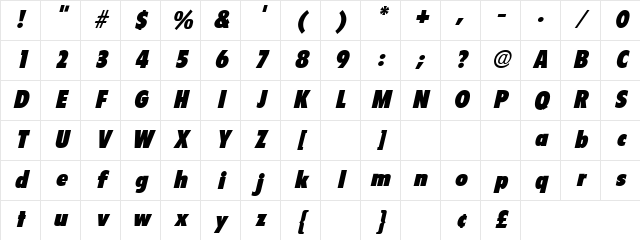
Rainbow Oblique
Design Context for Rainbow
Rainbow is a composed and adaptable typeface that performs quietly and consistently across a wide range of design contexts. The slanted form adds forward momentum and visual energy.
Pro Tip: Use Rainbow for emphasis, pull quotes, and subheadings where its slanted energy can add rhythm to the layout.